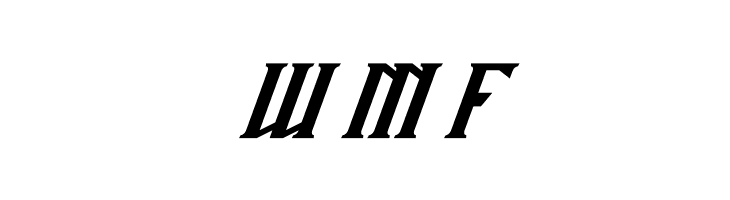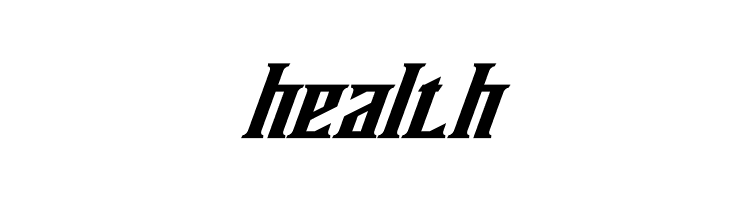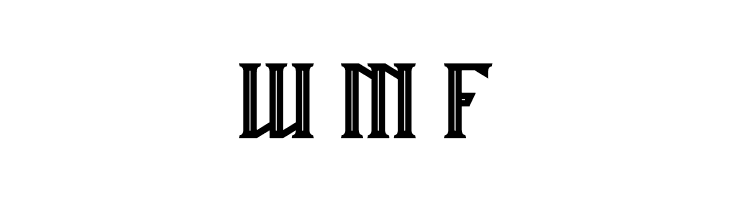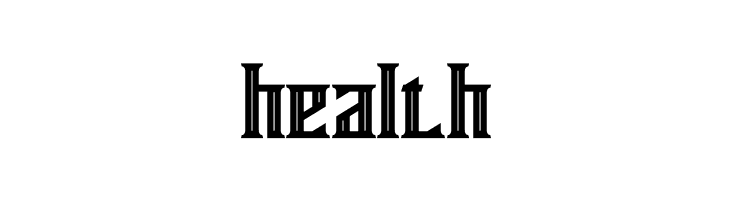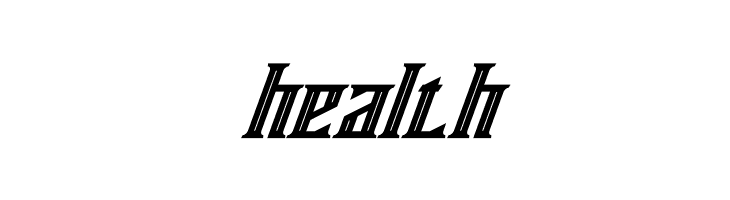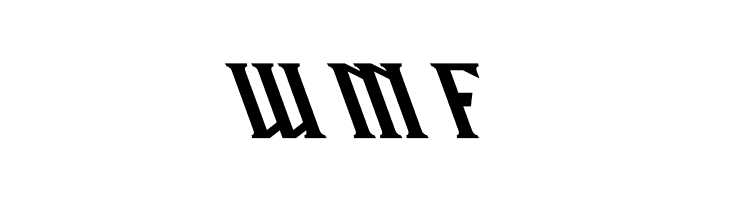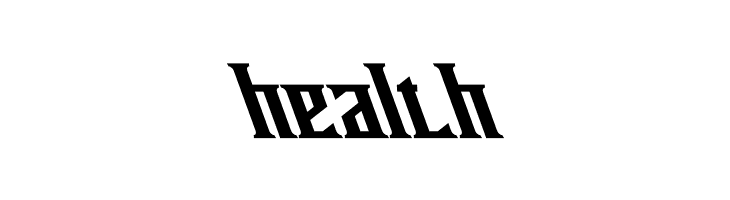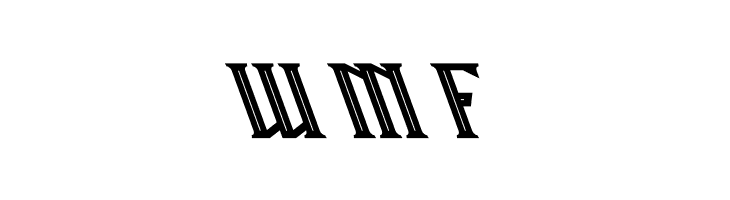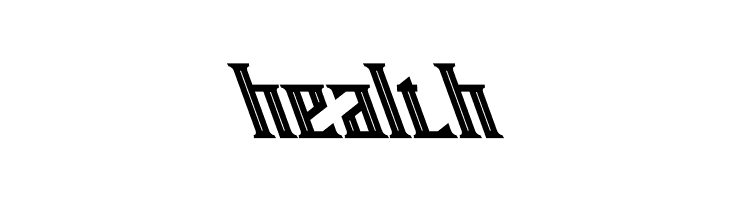
Miles Hunt Clean Italic Font
A bold, italic font with sharp, angular edges and a dynamic style.
Miles Hunt Italic Font
A bold, italic font with angular, geometric characters and high contrast.
Miles Hunt Font
A bold, angular font with a Gothic-inspired design and modern appeal.
Miles Hunt Oblique Font
A bold, angular, and oblique font with a modern, edgy style.
Miles Hunt Clean Oblique Font
A bold, angular font with a dynamic oblique slant and geometric influence.